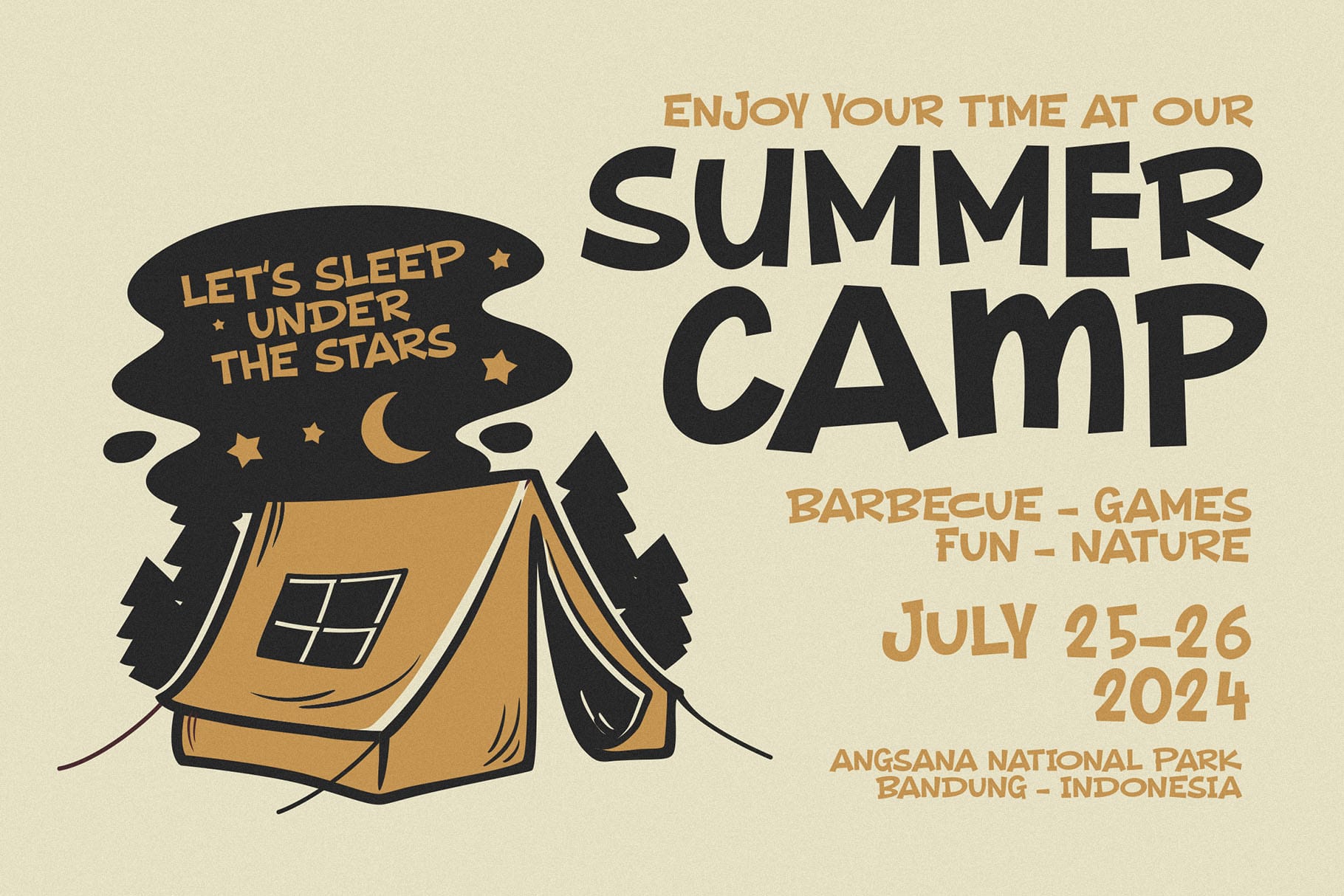
Grow Boys Display Font for Not So Ordinary Creative Projects
Grow Boys display font is made for designers who want their work to feel playful, expressive, and slightly unexpected. With its not-so-ordinary display personality, Grow Boys helps titles, logos, packaging, posters, and digital graphics feel more memorable without becoming difficult to use.
This font is a strong choice for creative projects that need character from the first glance. Whether you are building a fun brand identity, creating merchandise artwork, designing a poster, or preparing social media visuals, Grow Boys gives your words a distinctive presence.
It is especially useful when your design needs to feel lively, friendly, and bold. The style works well for brands and creators who want something more engaging than a standard clean typeface, while still keeping the design practical for real-world use.
Grow Boys brings a playful display style with a charming visual attitude. It feels bold, casual, and expressive, making it ideal for projects that need a strong headline or a fun typographic focal point.
The font has a creative personality that can support youthful branding, cheerful packaging, kids-focused visuals, event posters, product labels, apparel graphics, and digital content. It does not feel overly formal or corporate. Instead, it gives your design a warm, confident, and approachable look.
Because Grow Boys is a display font, it is best used for larger text settings such as titles, short phrases, logo marks, hero text, poster headlines, product names, and statement typography. It can help your design stand out when used with good spacing, clear layout, and a balanced supporting font.
Best Use Cases
Grow Boys is a practical choice for many creative design needs. Use it for logo design, branding concepts, playful packaging, children’s products, posters, flyers, YouTube thumbnails, social media posts, stickers, apparel design, print-on-demand products, craft projects, and digital product covers.
It can also work beautifully for small business branding where the visual identity needs to feel fresh, fun, and approachable. Think snack brands, toy shops, creative workshops, kids’ activities, handmade products, playful cafés, stationery lines, and lifestyle merchandise.
For designers, Grow Boys can become a reliable headline font when a project needs more personality than a basic sans serif. For crafters and digital sellers, it can help create products that feel visually attractive in thumbnails, mockups, and online listings.
Key Features of Grow Boys Display Font
Designers love fonts that save time without making the final result look generic. Grow Boys gives you a ready-to-use display personality that can quickly shape the mood of a layout. Instead of starting with a plain headline and trying to add personality later, you can begin with a typeface that already carries a playful visual voice.
For branding projects, Grow Boys can help create a name, badge, label, or headline that feels more recognizable. For packaging design, it can bring charm to product names and front-facing labels. For social media graphics, it helps short words and phrases stand out in crowded feeds.
Use Grow Boys as the main display font, then pair it with a simpler typeface for body text, descriptions, and supporting information. This keeps your layout readable while allowing the headline to carry the main personality.
Grow Boys display font is a strong choice when your project needs more than ordinary typography. It brings playful energy, bold display impact, and a distinctive creative mood that can help your designs feel more memorable across branding, packaging, posters, merchandise, and digital content.